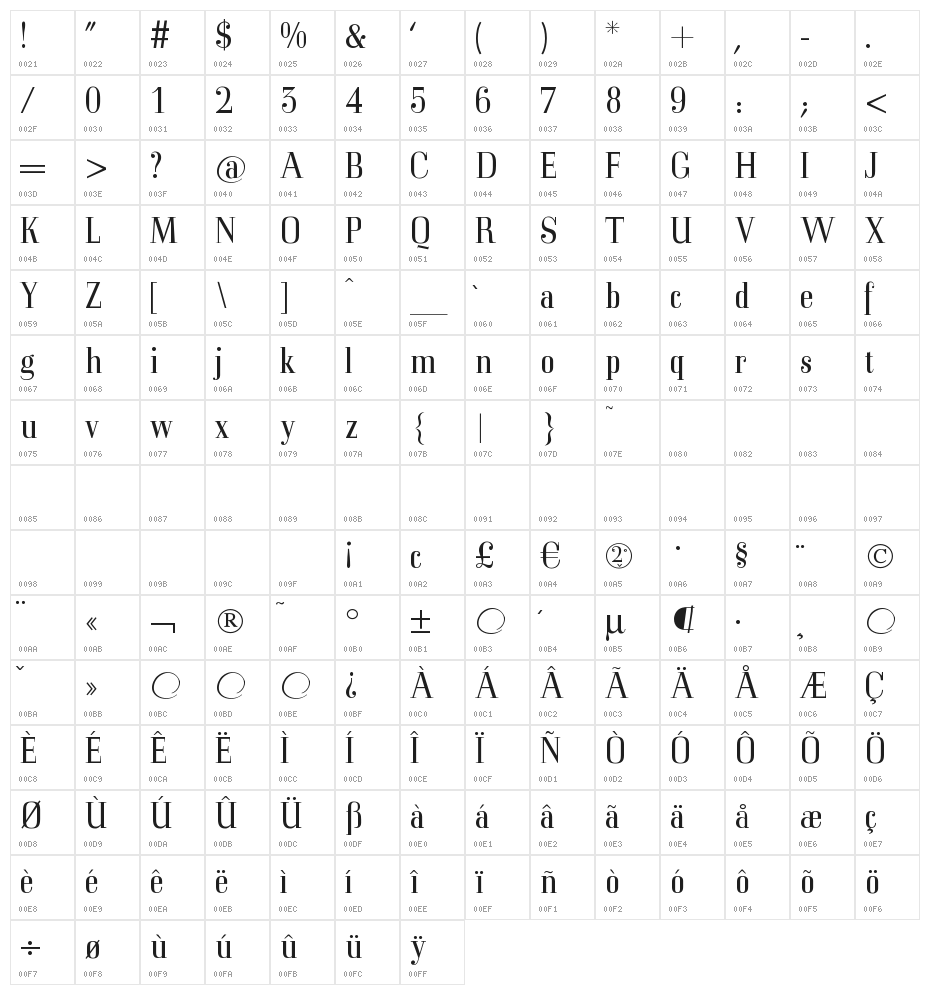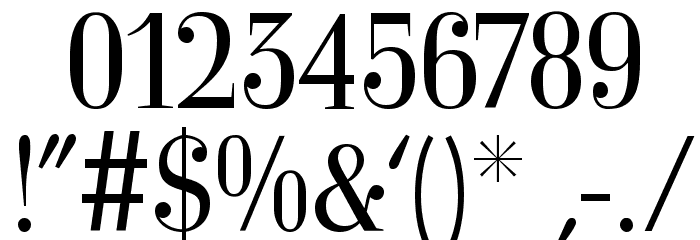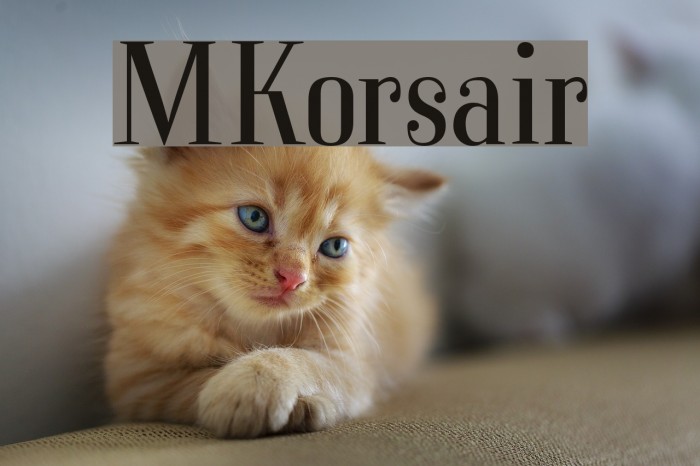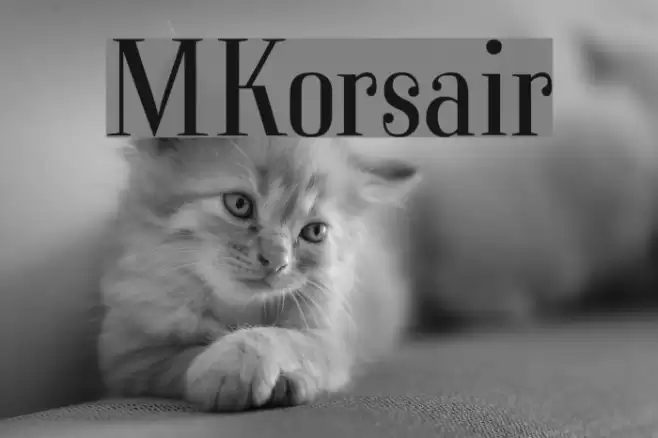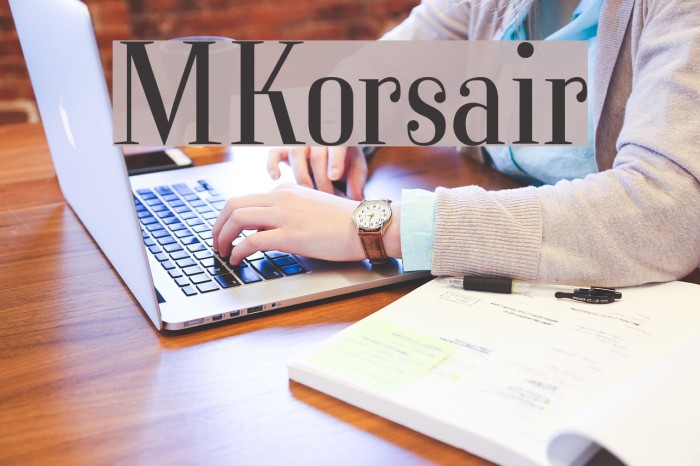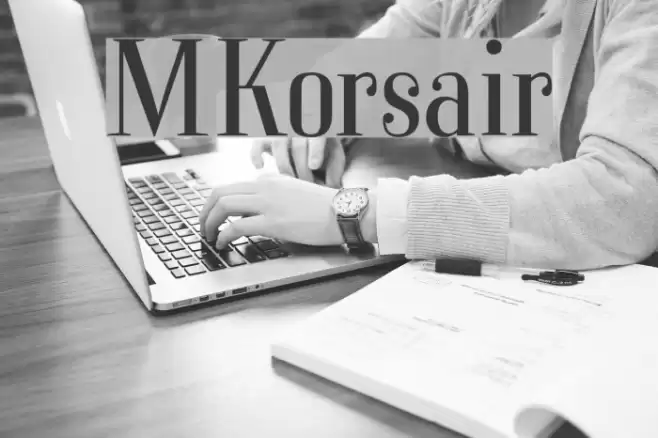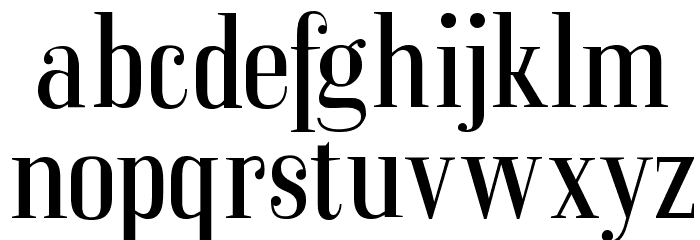
MKorsair Font
MKorsair Description
This font exhibits a classic serif style with a modern twist, characterized by its elegant and refined letterforms. The uppercase letters are tall and commanding, with a slight contrast in stroke thickness that adds a touch of sophistication. The lowercase letters maintain a consistent style, featuring subtle curves and sharp serifs that enhance readability. The numerals are well-proportioned, aligning seamlessly with the overall aesthetic. Special characters are thoughtfully designed, ensuring versatility across various applications. This font's balance between traditional and contemporary elements makes it suitable for a wide range of design projects.
| Overall Style | Classic |
| Use Case | Headlines, Body text, Logos |
| Proposed Projects | Ideal for editorial design, branding, book covers, and formal invitations. |